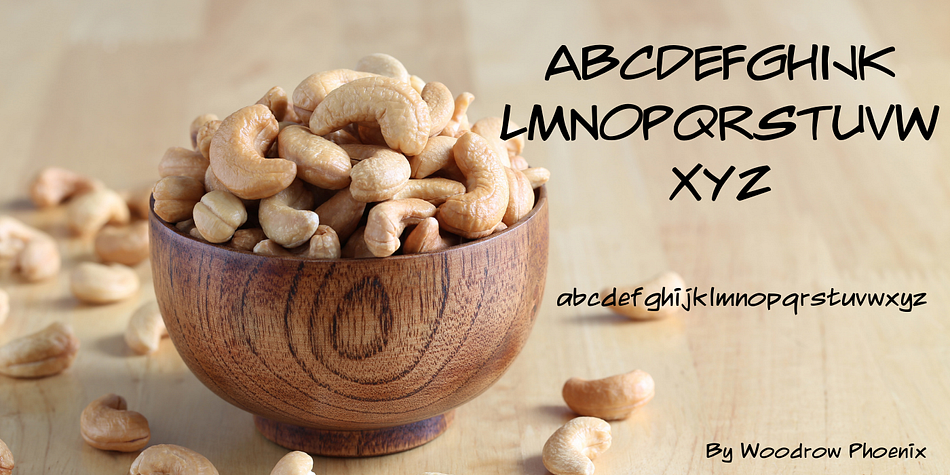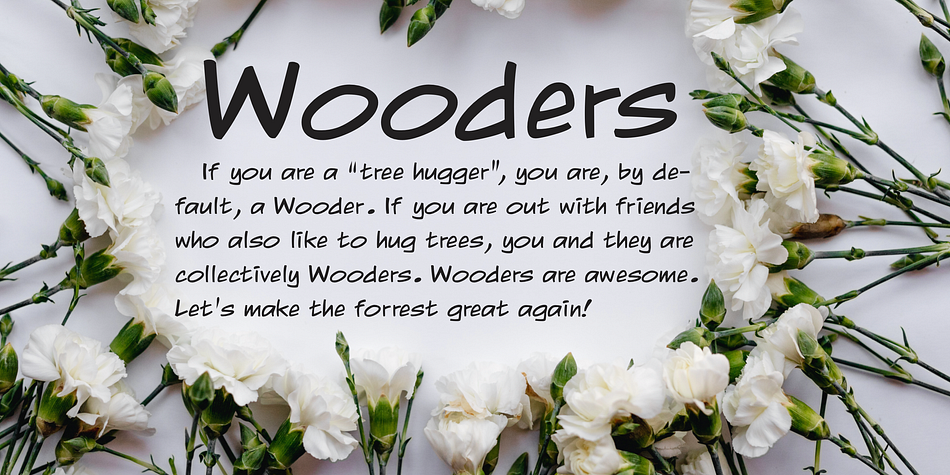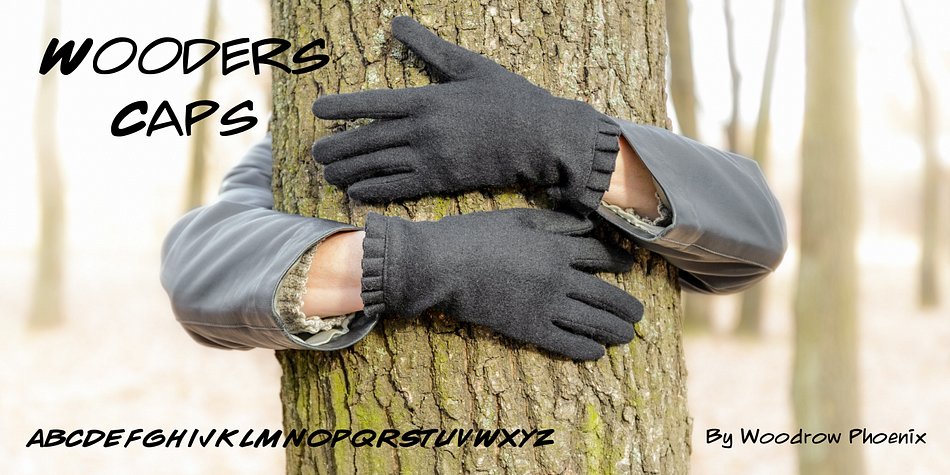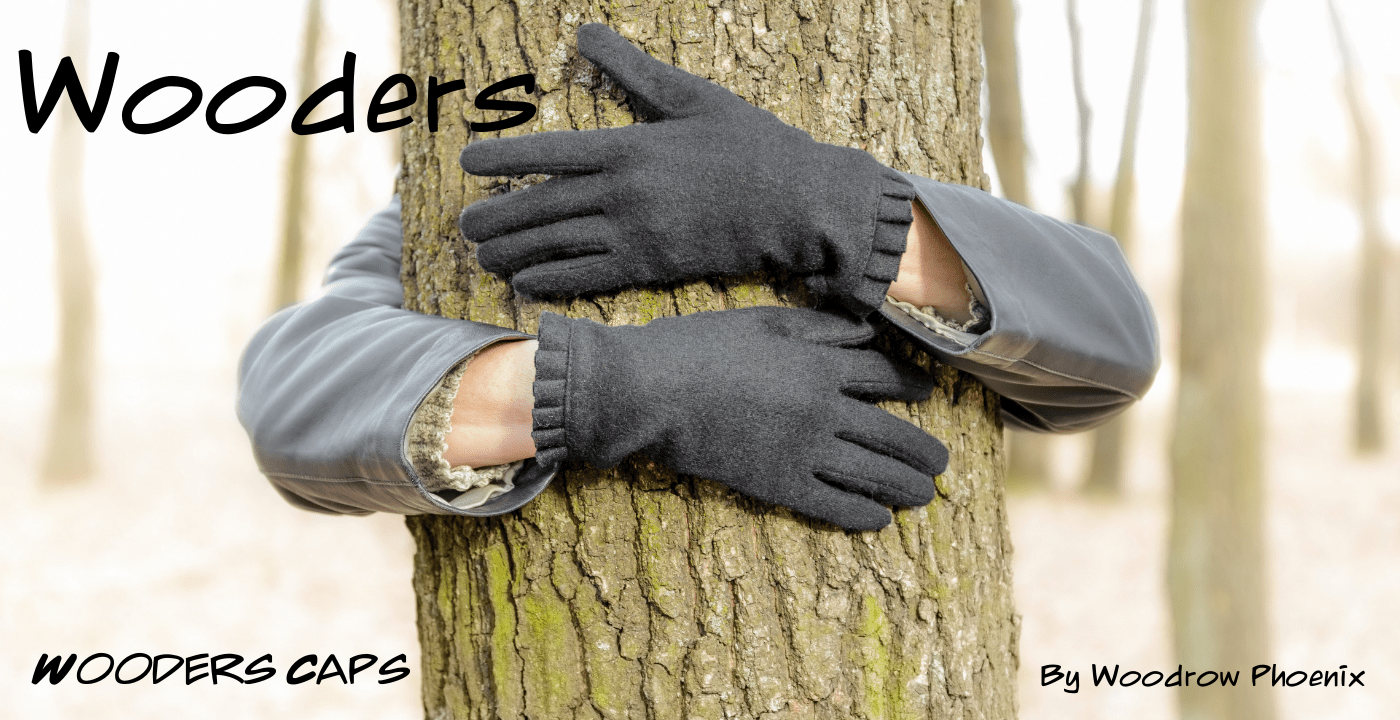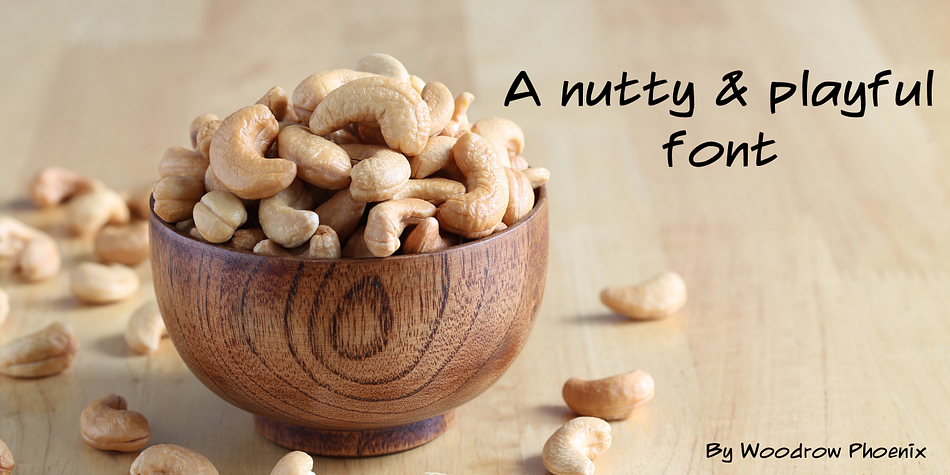
Wooders
Designed by Woodrow Phoenix, Wooders is a comic and hand drawn font family. This typeface has two styles and was published by FontHaus.
Wooders is a friendly and casual, hand drawn sans serif alphabet designed by Woodrow Phoenix, a British comics artist, writer, editorial illustrator, graphic designer, font designer and author of children’s books. Phoenix’s work is graphic and playful, while noted for its high degree of formal experimentation. He draws in very different styles, which make his comics appear to be the work of three or four completely different creators. This design is great for anything from children’s books, editorial, advertising, signage, culinary packaging, and the web.